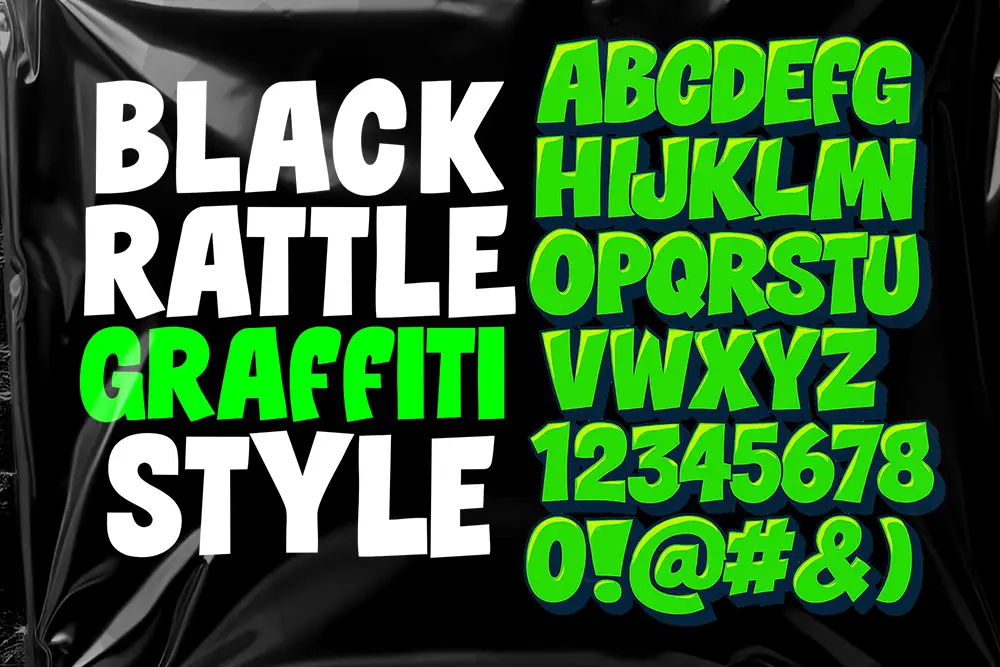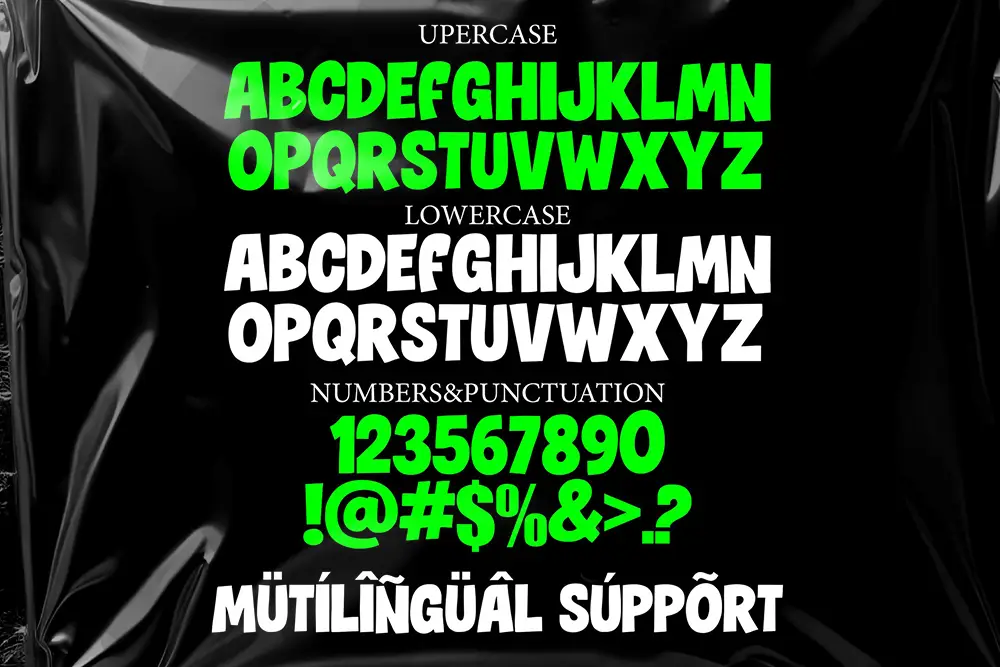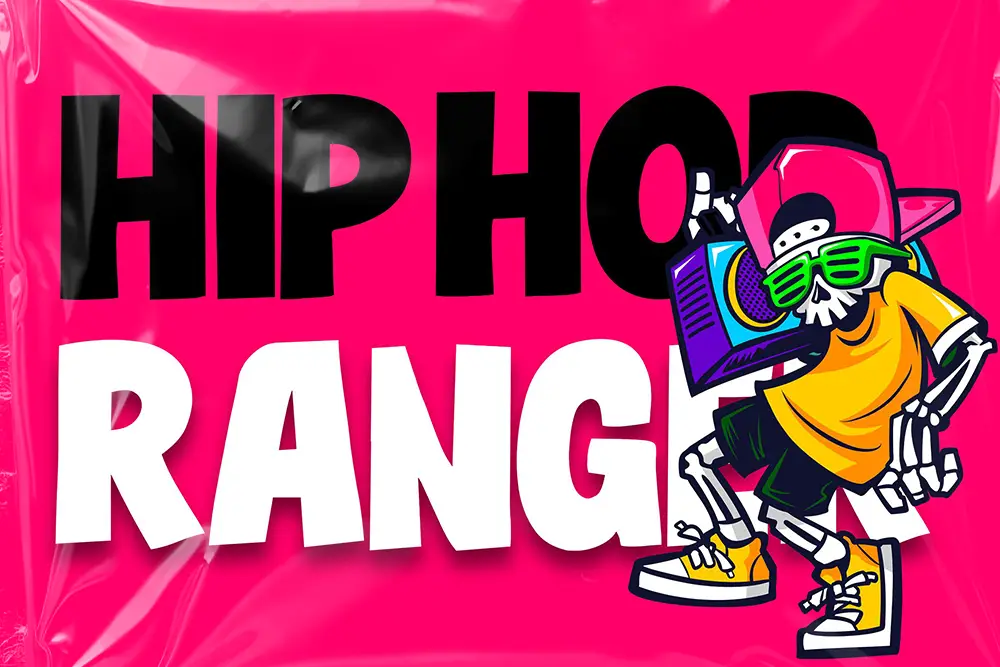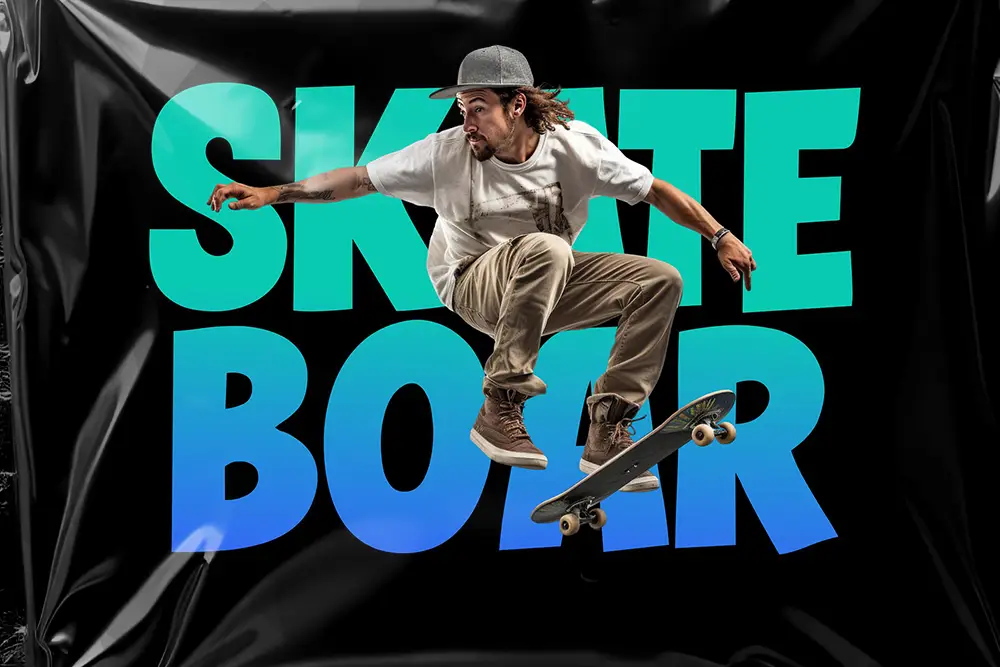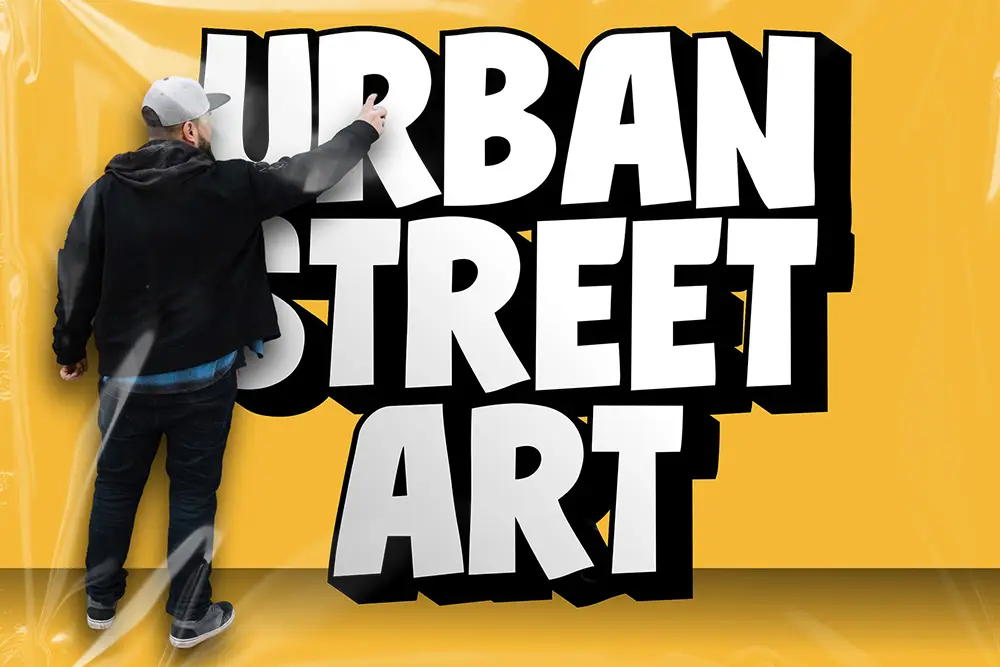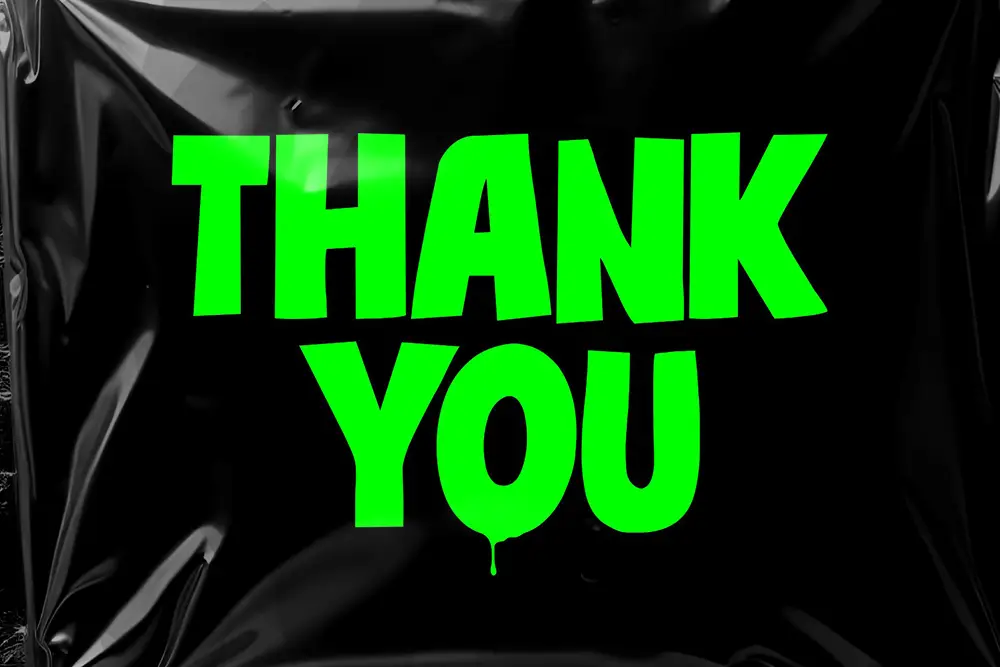
Black Rattle – Display Sans Serif Font for Bold Modern Design
Typography defines the personality of every brand. If you want to create logos, posters, or headlines that demand attention, Black Rattle – Display Sans Serif Font is the perfect choice. This bold and modern display sans serif font combines strength with simplicity, making it a versatile tool for designers who want clarity, impact, and style.
With uppercase, lowercase, multilingual support, and flexible formats, Black Rattle ensures your design projects always stand out. This display sans serif font is crafted to dominate the visual space and deliver a clean, professional look across print and digital platforms.
Display Sans Serif Font with Bold Personality
Black Rattle is not just another typeface. It’s a display sans serif font that carries a modern edge and bold geometry. Its wide letterforms, clean strokes, and all-caps strength make it ideal for logos, product packaging, posters, and advertising.
Unlike decorative typefaces, this display sans serif font maintains high readability even at large sizes, making it suitable for both branding and editorial design.
Key Features of Black Rattle – Display Sans Serif Font
Designers need fonts that combine beauty and practicality. Here are the essential features of Black Rattle – Display Sans Serif Font:
- All Caps: Strong uppercase and lowercase set for impactful design.
- Multilingual Support: Extended Latin character coverage for international branding.
- Bold & Clean: Sharp sans serif geometry built for clarity.
- Perfect for Display: Ideal for logos, posters, headlines, and branding.
Why Designers Love Black Rattle
Designers love Black Rattle because it offers power, flexibility, and style in one package. This display sans serif font is bold enough for high-impact headlines yet refined enough for professional branding.
Here’s why creatives keep choosing it:
- Impactful Aesthetic: Stands out in crowded visuals.
- Universal Application: Perfect for everything from posters to digital ads.
- Professional Finish: Built for both freelancers and established design studios.
Black Rattle in Logos and Branding
Logos demand strength and memorability. As a display sans serif font, Black Rattle delivers modern minimalism with boldness. Its letterforms communicate authority while keeping a clean, versatile look. Whether used for startups, technology companies, or lifestyle brands, this typeface makes your logo timeless.
Black Rattle for Posters and Headlines
Every poster and headline must grab attention instantly. That’s where Black Rattle excels. This display sans serif font was designed for high visibility, making it perfect for billboards, magazine covers, and event banners.
Its bold structure ensures maximum legibility from a distance, while its modern sans serif character adds a stylish edge.
Using Black Rattle in Digital Media
In today’s fast-paced world, digital media requires fonts that balance clarity and style. Black Rattle fits perfectly into websites, apps, social media graphics, and YouTube thumbnails. This display sans serif font ensures your titles and banners look professional while keeping a bold modern vibe.
- Character Set: Uppercase, Lowercase, Numbers, Punctuation
- Multilingual Support: Yes
- Category: Display Sans Serif Font
- Best Uses: Logos, Posters, Branding, Digital Media, Headlines
Why Black Rattle is a Must-Have
Typography trends are moving toward bold, minimalist designs. Black Rattle captures this perfectly. As a display sans serif font, it offers clarity, authority, and style that works across industries.
It’s not just a typeface; it’s a design tool that amplifies your branding. Pair it with Roadpunks for raw energy, or use it solo for sleek modernism. Either way, your design becomes instantly more impactful.
Black Rattle – Display Sans Serif Font is built for creatives who want to make a statement. With bold geometry, multilingual support, and flexible file formats, it’s a professional-grade typeface that elevates any project.
Don’t just design—make your visuals unforgettable with Black Rattle. Use it for logos, posters, headlines, and digital branding to capture bold modern energy.